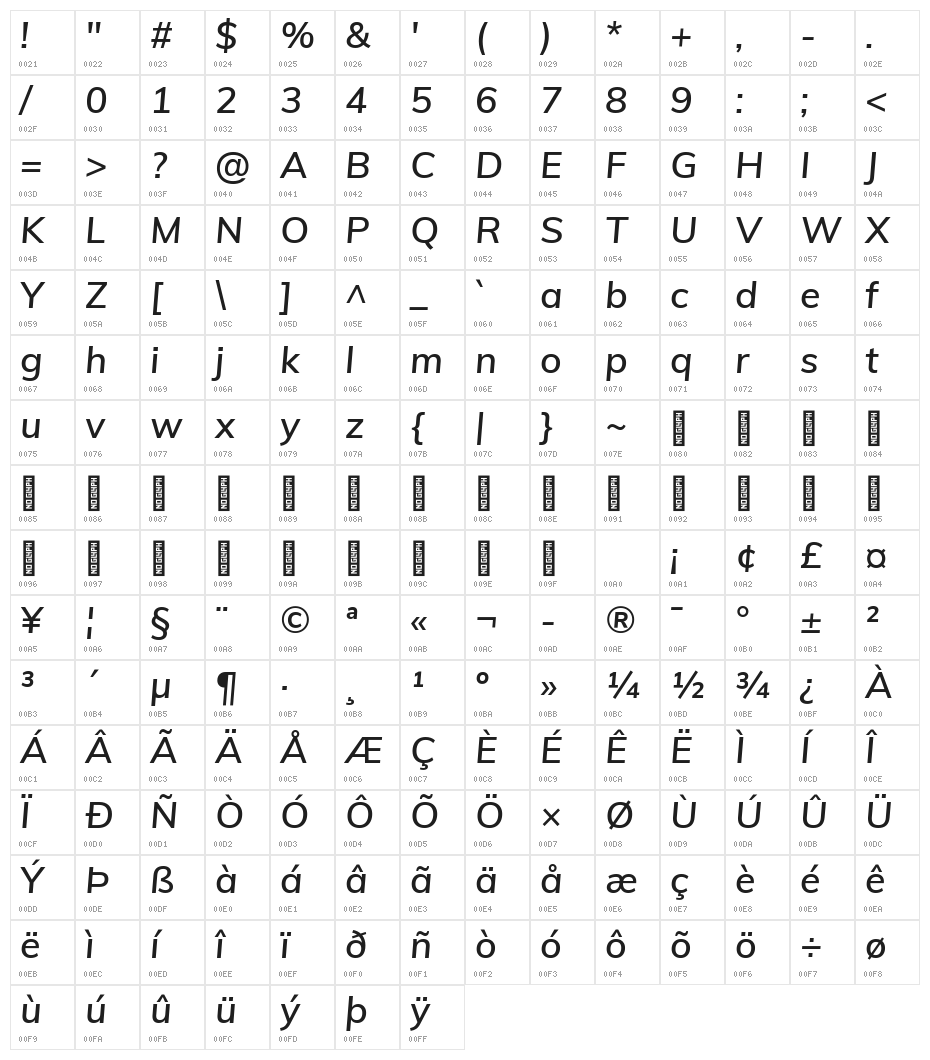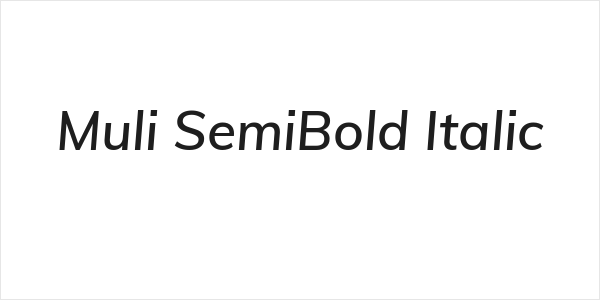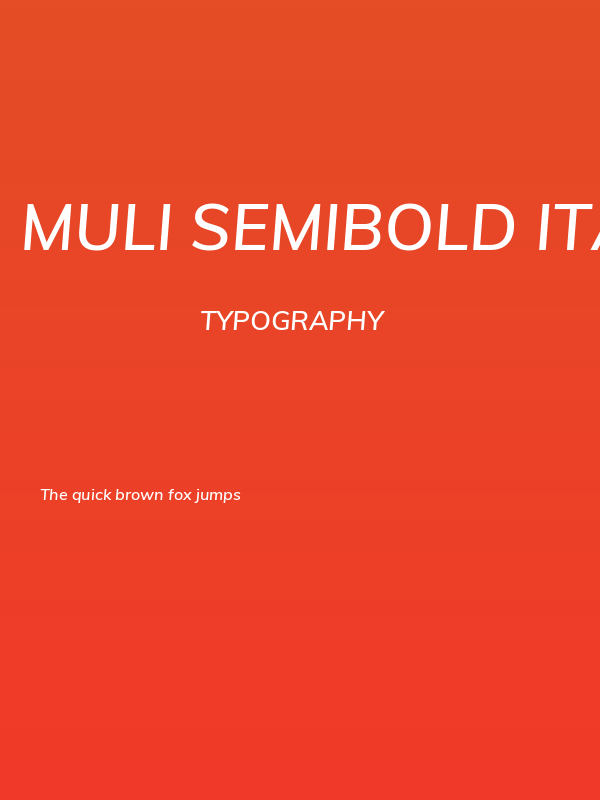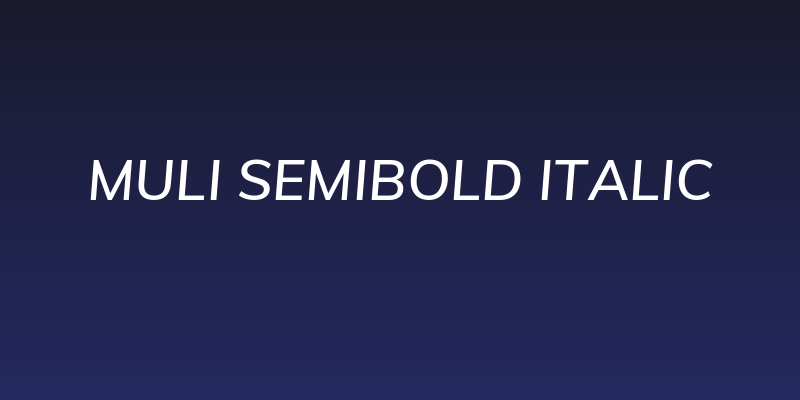
Muli SemiBold Italic Font
Muli SemiBold Italic Description
This typeface presents a clean and modern aesthetic with a slightly italicized slant, giving it a dynamic and forward-moving appearance. The characters are well-proportioned, with a medium weight that balances readability and style. The sans-serif design ensures clarity and simplicity, making it versatile for various applications. The spacing between characters is normal, allowing for easy legibility without feeling cramped. The numerals and special characters maintain the same stylistic approach, ensuring consistency across all text elements. This font's subtle elegance and contemporary feel make it suitable for both digital and print media.